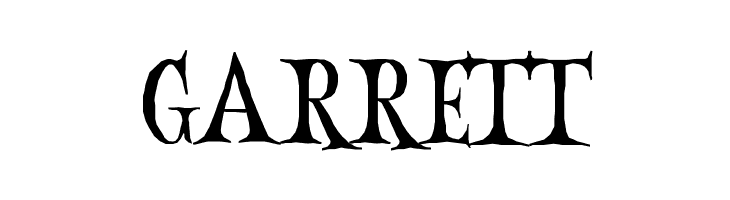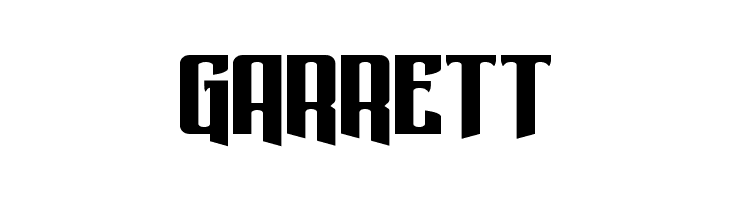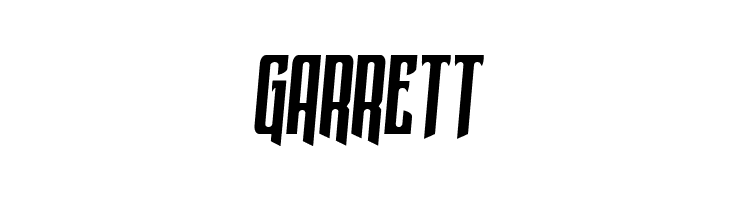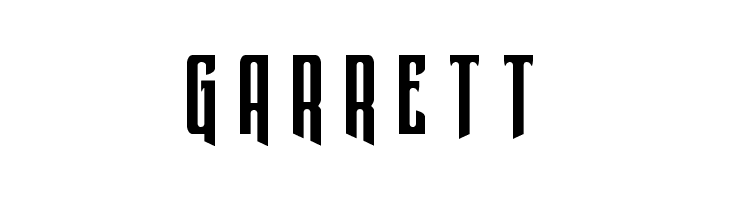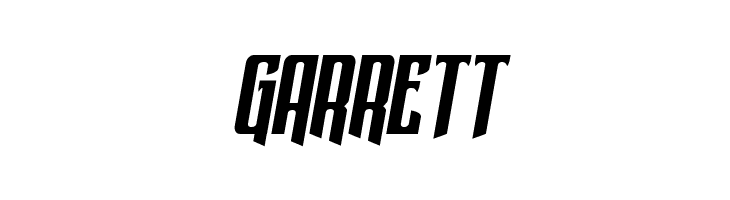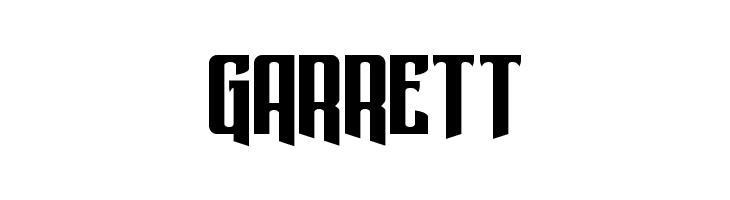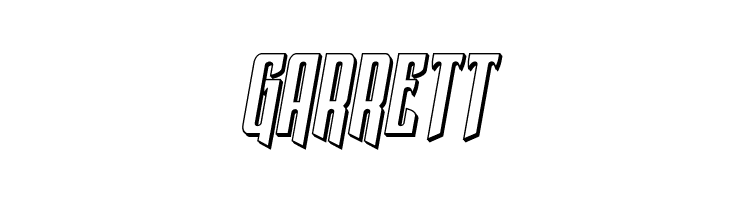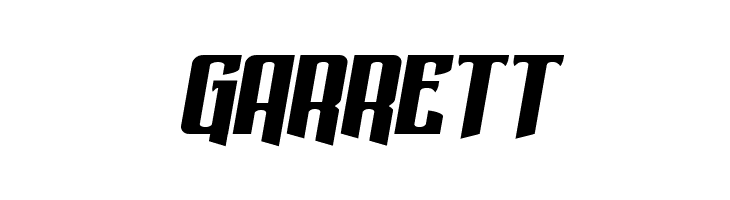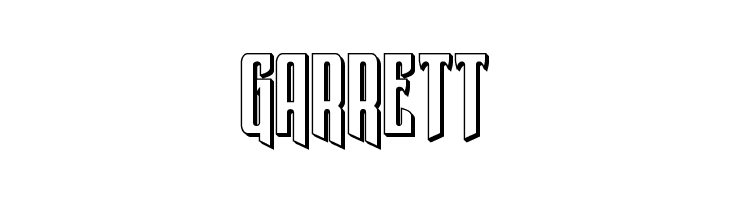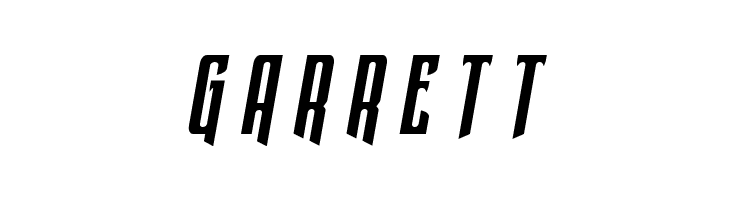
A gothic, ornate font with sharp serifs and dramatic flourishes, perfect for horror themes.
A bold, edgy font with sharp angles and a blocky appearance.
A playful, bold handwritten font with a casual and friendly style.
A bold, jagged font with a horror-themed, distressed style.
A playful, rounded font with a casual and informal style.
A bold, distressed font with jagged edges and a grunge aesthetic.
A bold, jagged font with a distressed, energetic style.
A bold, brush-style font with dynamic strokes and artistic flair.
A playful, handwritten script font with bold, energetic characters.
A playful, whimsical font with tall uppercase and bold, rounded lowercase letters.
A bold, dynamic handwritten font with fluid, expressive strokes.
A bold, modern font with tall, narrow letterforms and high contrast strokes.
A bold, geometric 3D font with a modern and striking appearance.
A bold, 3D italic font with outlined characters and a futuristic style.
A bold, condensed font with a modern, geometric style.
A bold, condensed, and italic font with a modern and dynamic style.
A bold, geometric font with tall, narrow characters and sharp angles.
A bold, expanded, and italicized font with a dynamic and modern style.
A bold, geometric font with a vintage poster feel.
A bold, angular font with a modern, dynamic style.
A bold, halftone font with a futuristic, digital aesthetic.
A dynamic, italicized font with a halftone effect, perfect for modern and energetic designs.
A bold, italic font with sharp angles and high contrast.
A bold, left-leaning font with sharp angles and a modern, dynamic style.
A bold, semi-italic font with a modern and dynamic style.
A bold, italic font with a dynamic and futuristic style.
A bold, geometric font with tall, narrow characters and sharp angles.
A bold, italicized font with a futuristic and angular design.
A bold, geometric font with wide, blocky characters ideal for impactful designs.
A bold, wide, and italicized font with a modern, edgy style.
A modern, rounded font with bold, playful characters.
A bold, playful font with a cartoonish and lively style.
A bold, high-contrast serif font with sharp serifs and elegant style.
An elegant italic serif font with smooth, flowing lines and sharp serifs.
A dynamic handwritten font with fluid, brush-like strokes.